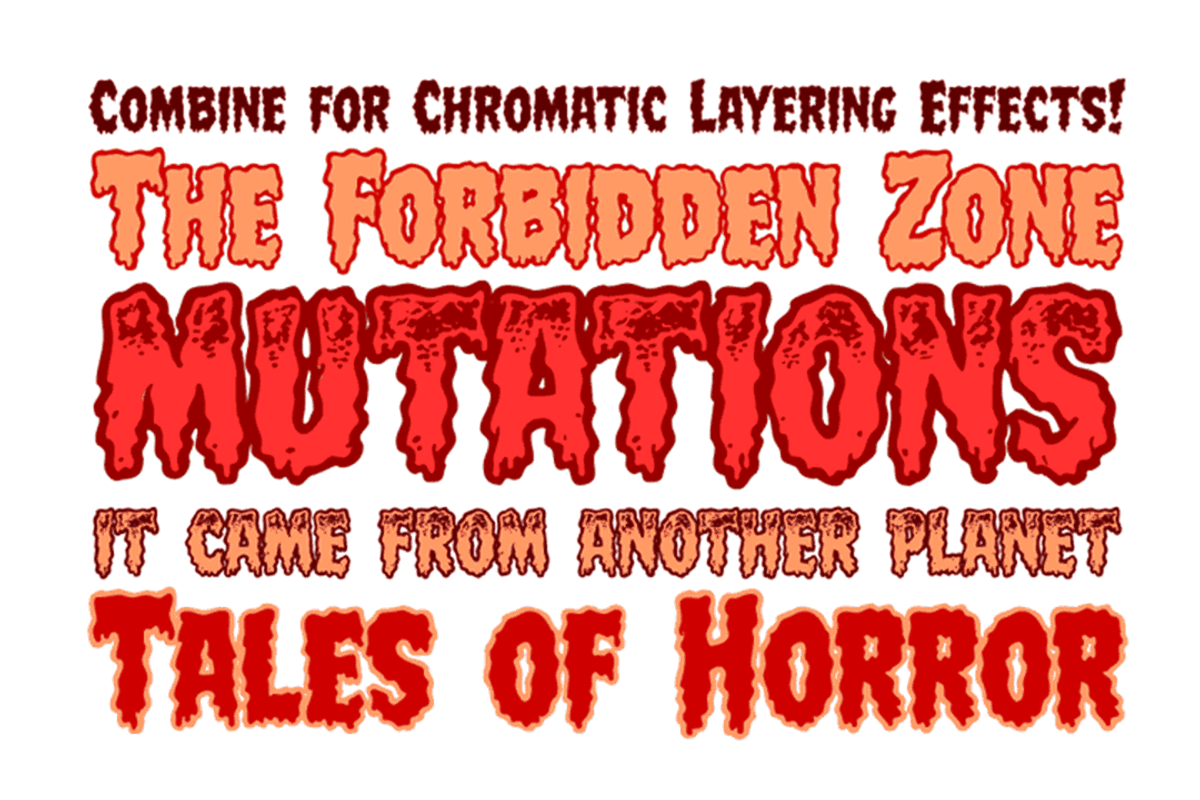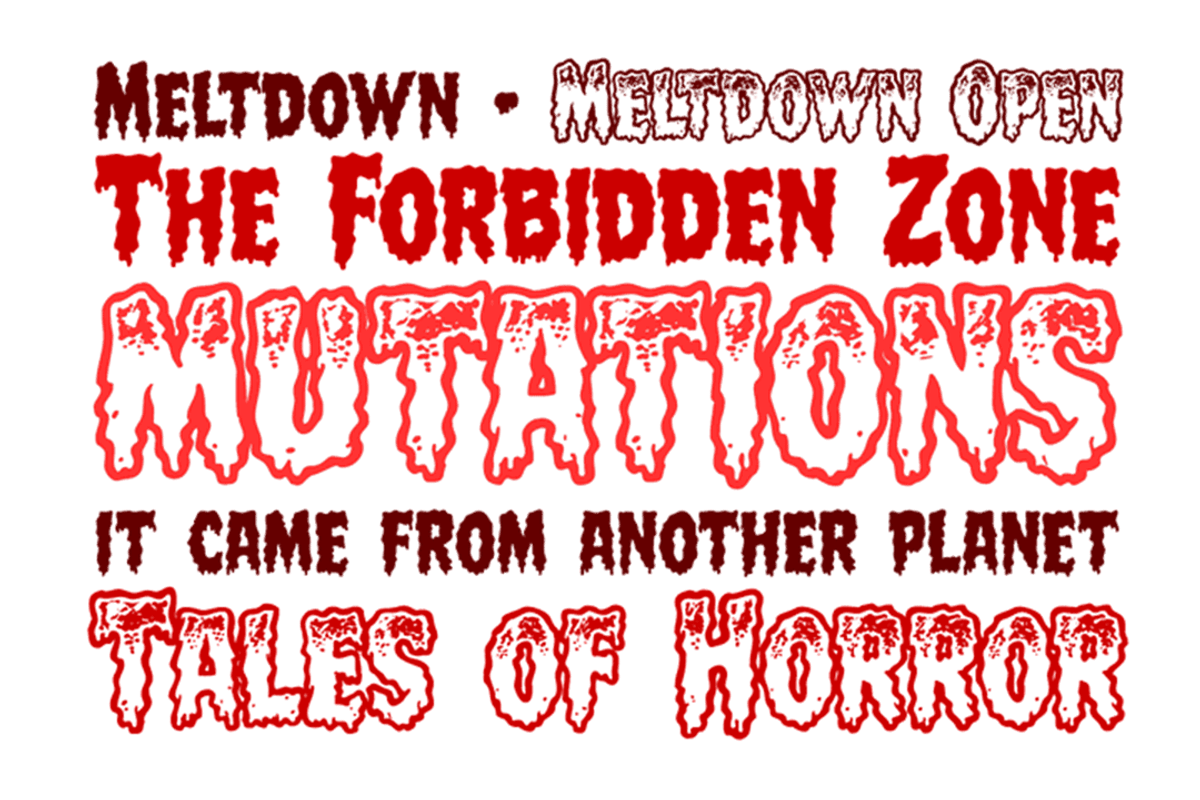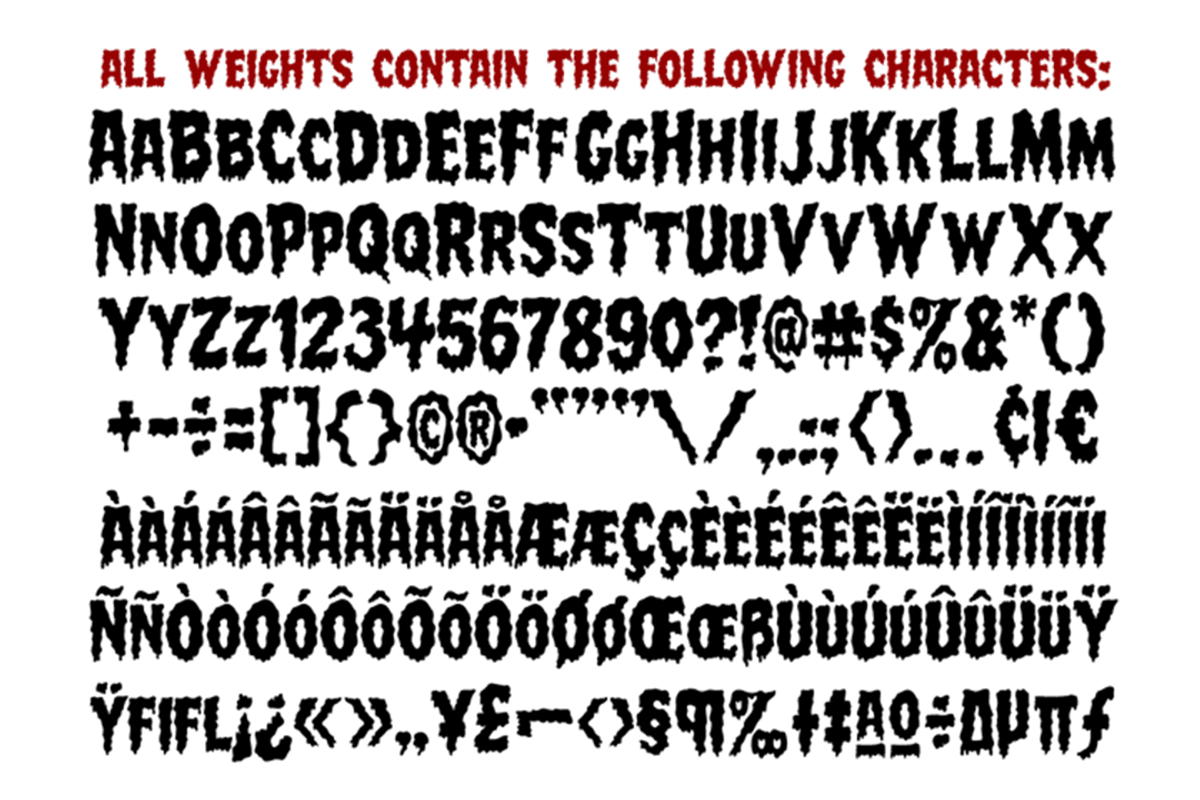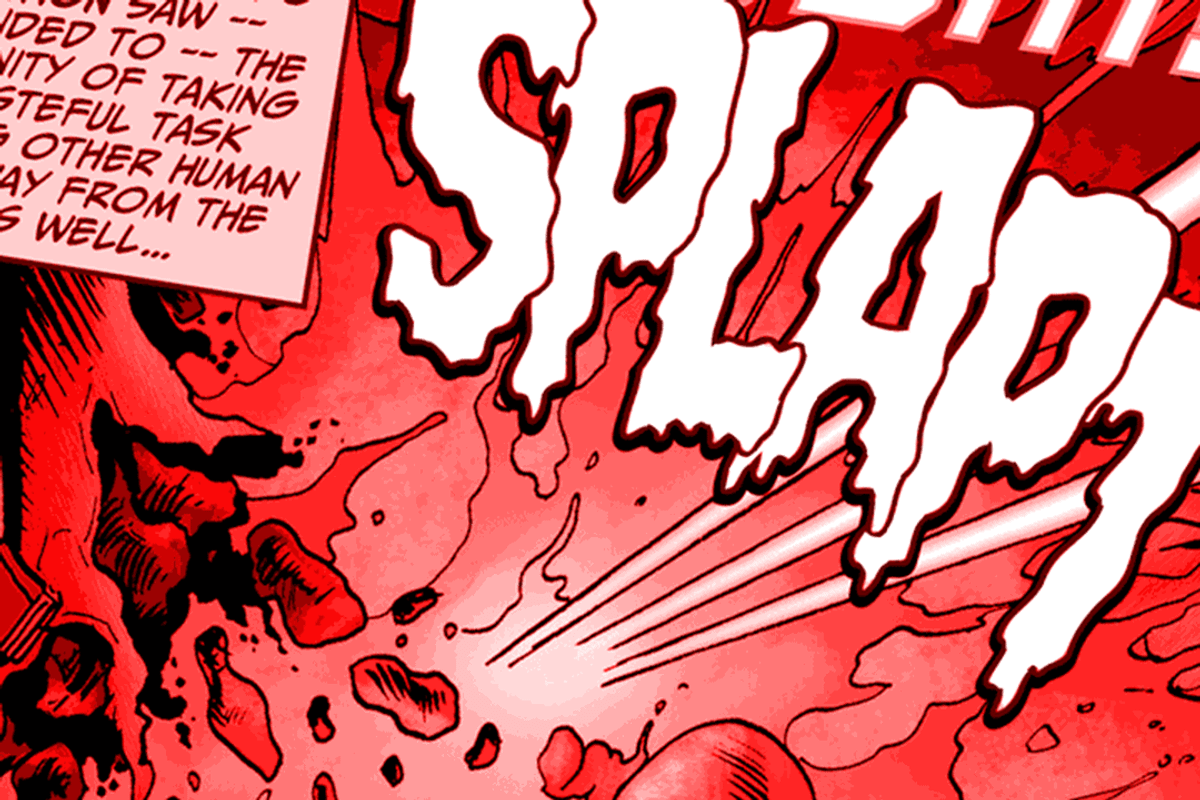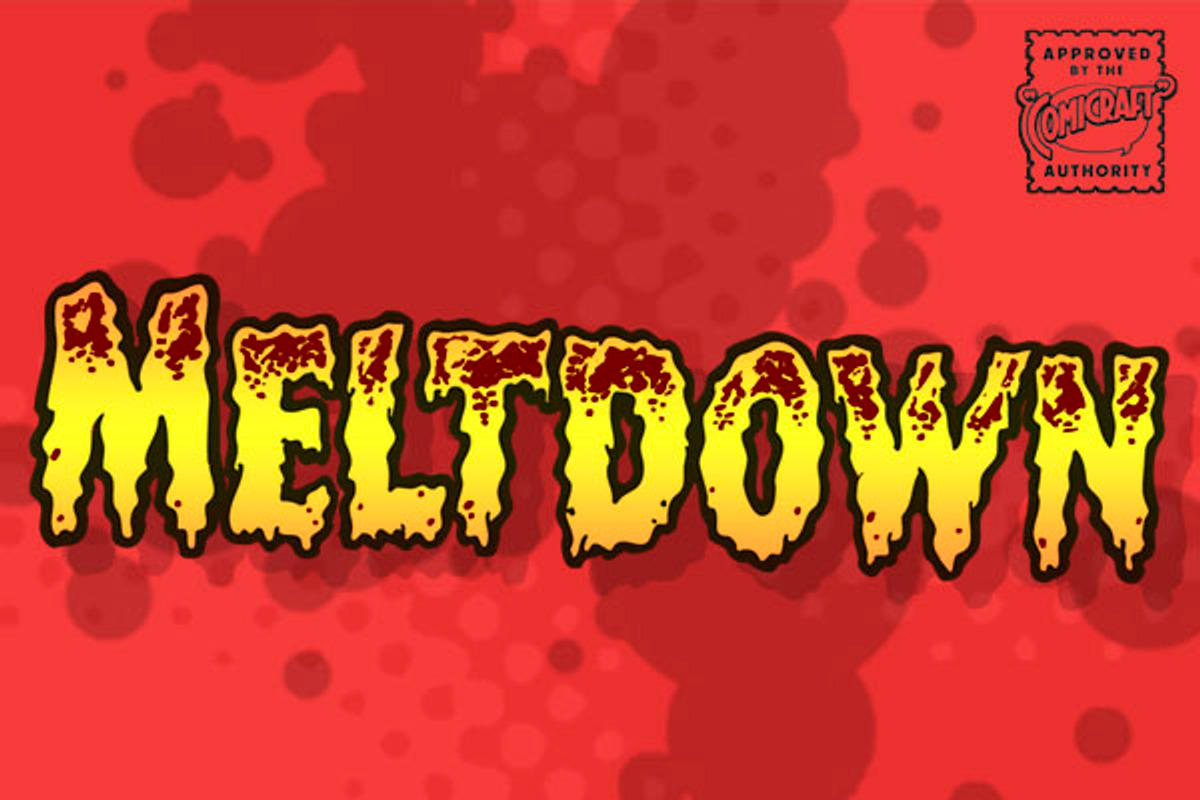
Meltdown
Meltdown by Comicraft Fonts is a font selected for branding, posters, packaging, typography.
Why Meltdown is worth a look
Meltdown by Comicraft Fonts fits naturally into Branding, posters, packaging, typography.